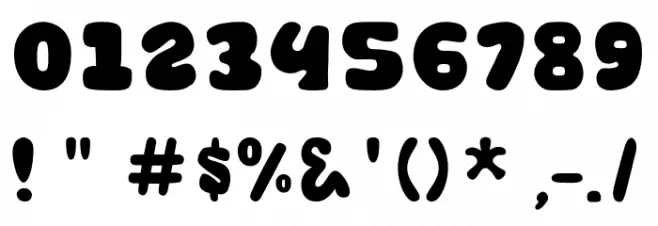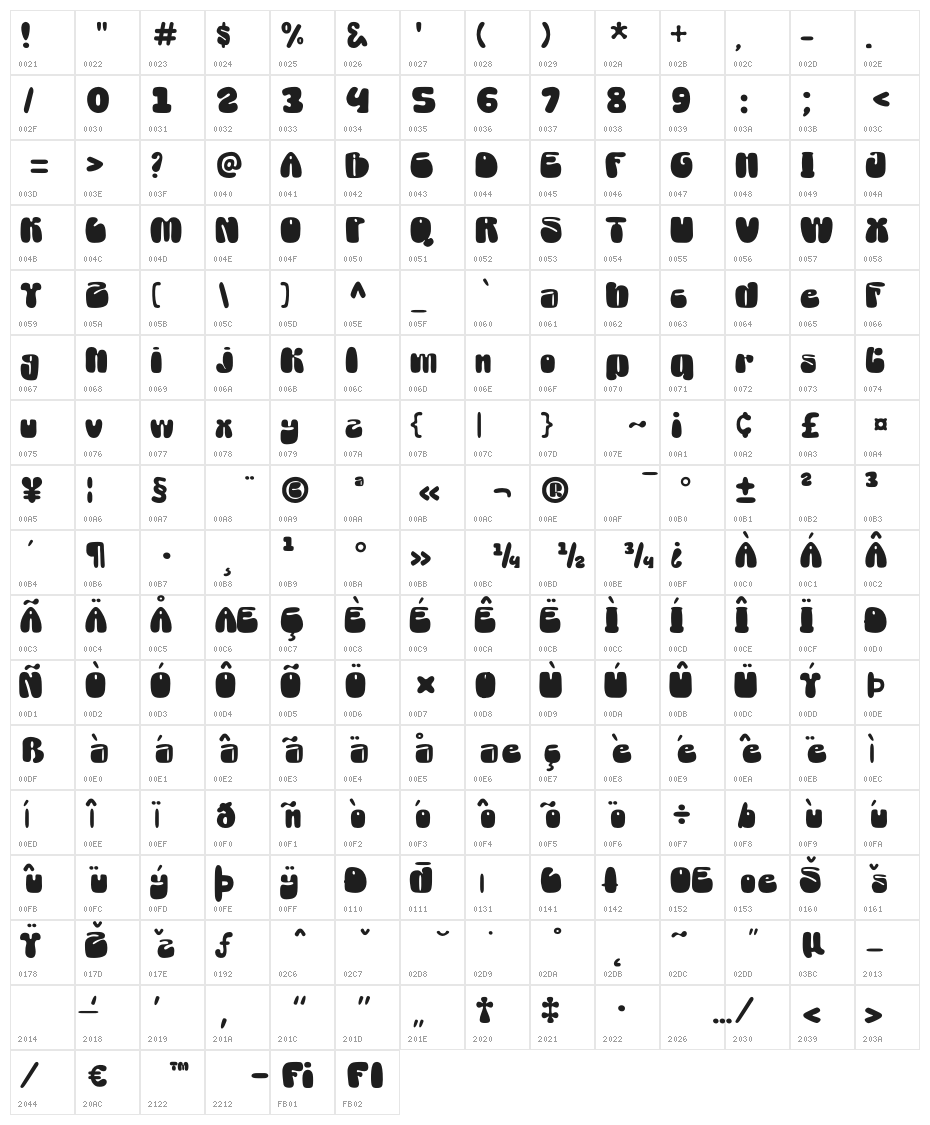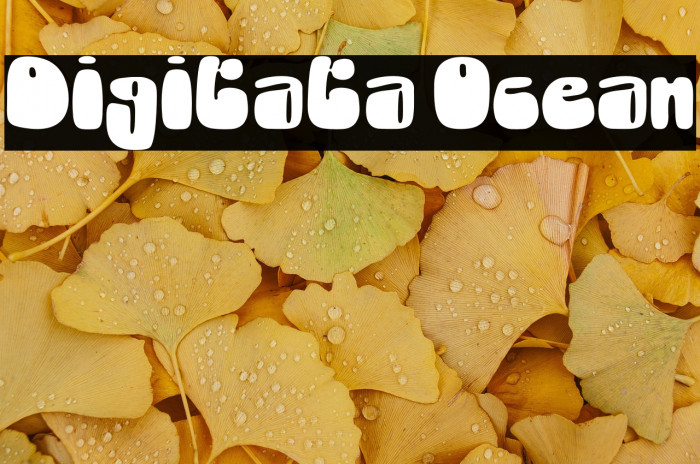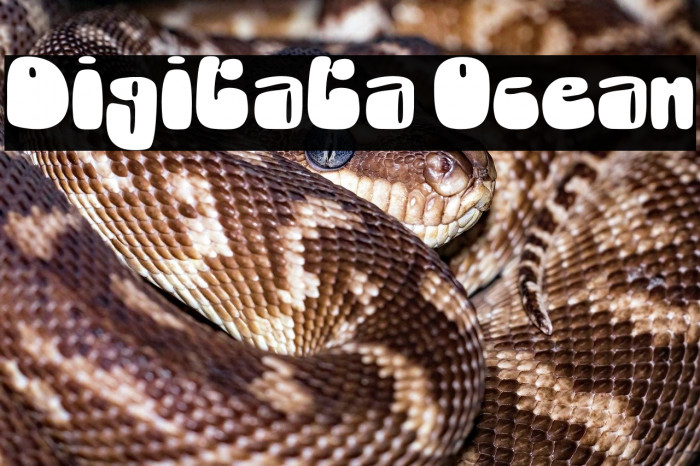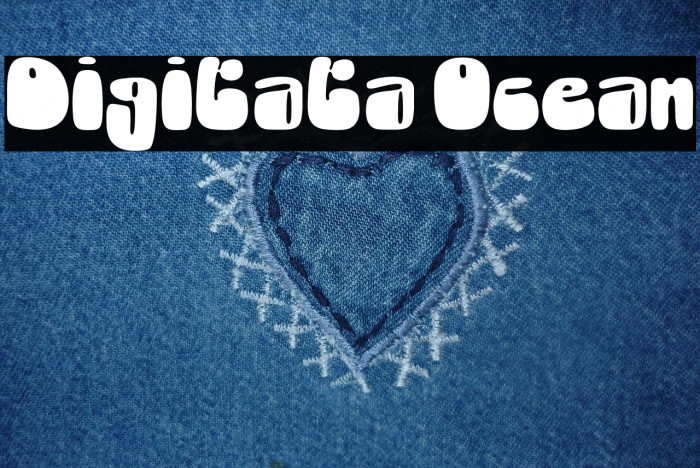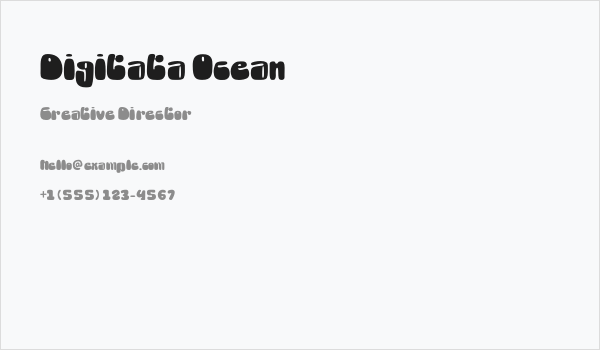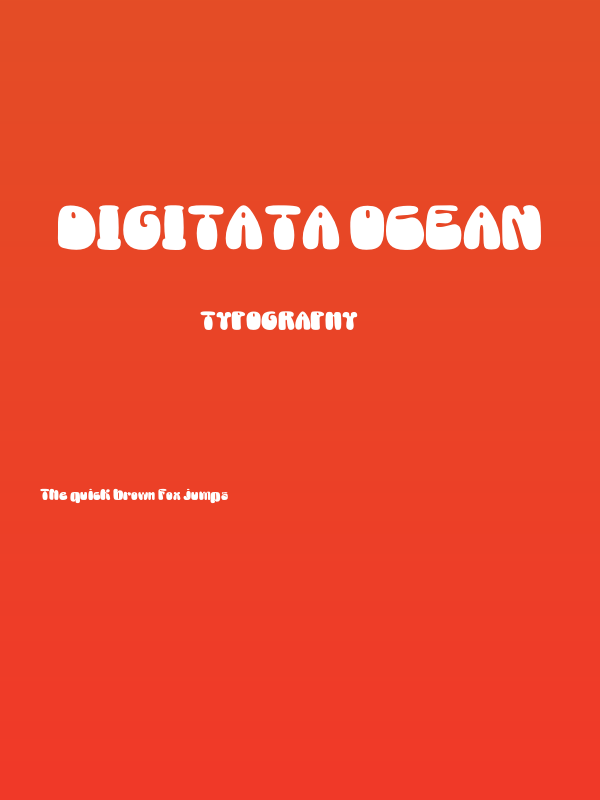
Digitata Ocean Font
Digitata Ocean Description
This font features a bold, playful design with rounded, bubble-like characters that exude a sense of fun and creativity. The letters are thick and have a soft, pillowy appearance, making them stand out with a unique, eye-catching style. The font maintains a consistent weight throughout, with each character exhibiting a smooth, rounded form. The numbers and special characters follow the same design principles, ensuring a cohesive look across all elements. This font is perfect for projects that require a touch of whimsy and boldness.
Overall StylePlayful, Creative
Proposed ProjectsIdeal for children's books, playful branding, party invitations, and creative posters.